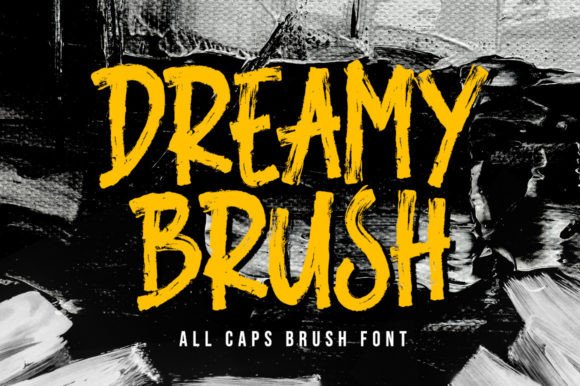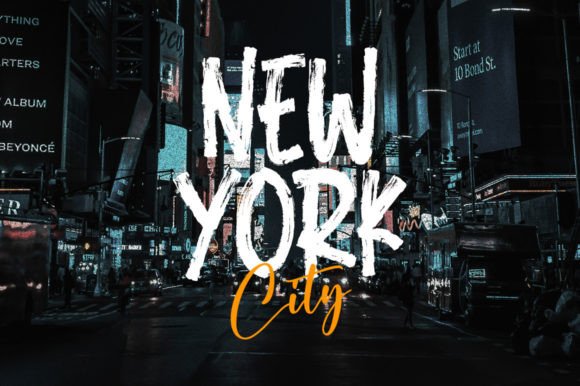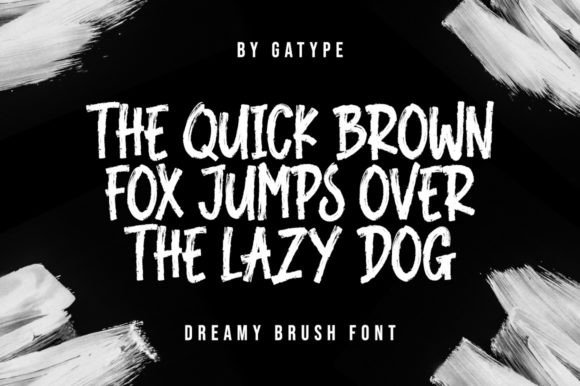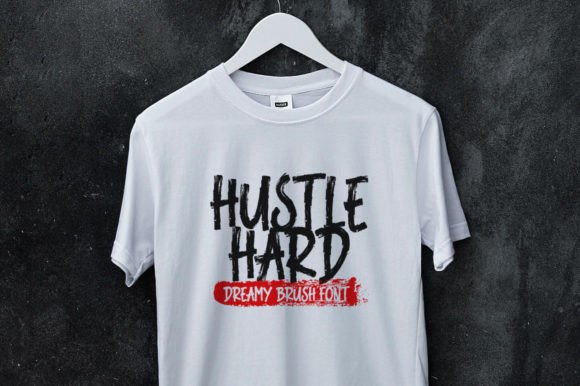
Dreamy Brush Font: A Bold Display Font for Eye-Catching Headlines
About the Dreamy Brush Font
The Dreamy Brush Font is here to transform your projects with its distinctive character and style. Dreamy Brush is a cool, contemporary handwritten brush font. Its modern and trendy vibe makes it suitable for a wide range of project ideas.
Dreamy Brush excels in display applications such as headlines, short taglines, and logos where its hand-drawn character adds a touch of personality and warmth. It’s ideal for branding projects targeting a younger demographic or those emphasizing creativity and a handcrafted aesthetic. Use it effectively on social media graphics, packaging for artisanal products, or posters for events with a casual feel.
However, its informal nature makes it unsuitable for large blocks of body text or user interfaces requiring high legibility. The brush strokes, while visually appealing, can hinder readability in extended passages. Avoid using it for anything requiring formal or highly professional communication.
Pairing Dreamy Brush with a clean sans-serif like Montserrat or a geometric sans-serif like Futura adds a sophisticated counterpoint, balancing its organic nature. For a warmer feel, consider pairing it with a classic serif like Playfair Display. These pairings ensure readability while maintaining visual interest. The overall personality is best described as friendly, modern, and slightly whimsical.
Dreamy Brush Font Usage Examples
Dreamy Brush Font Example